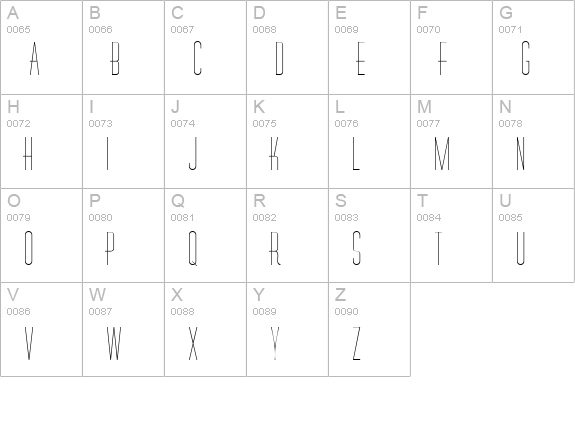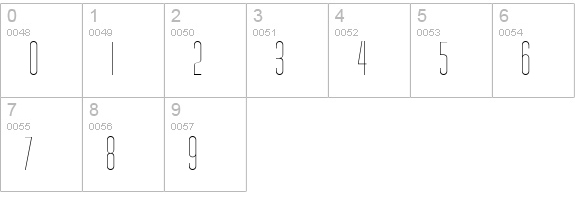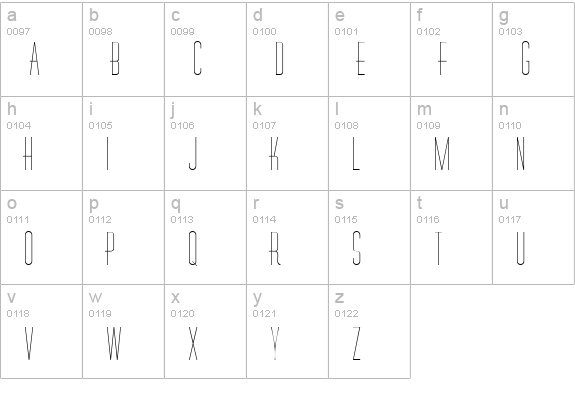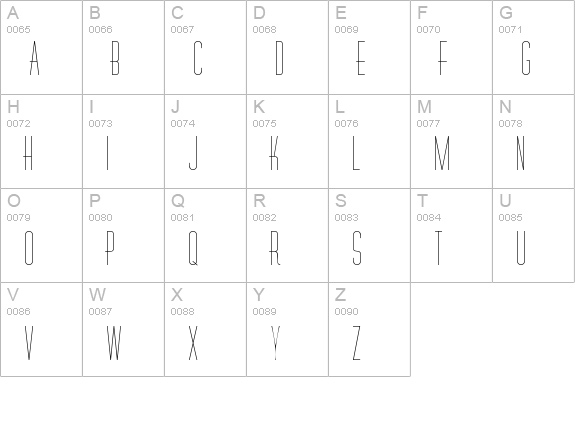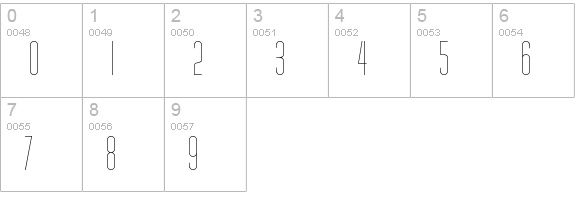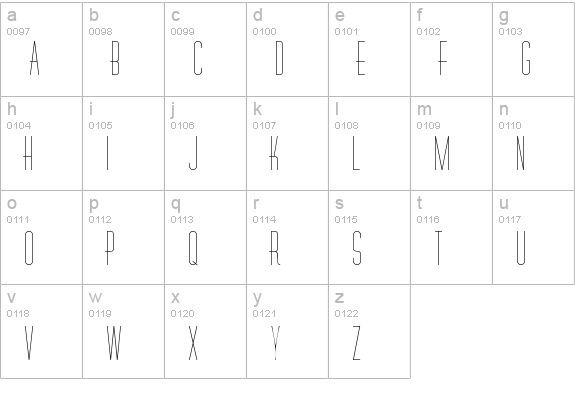
RoselleCapsSSK Font Details
RoselleCapsSSK is a unique and elegant font that exudes sophistication and charm. Its stylish and modern design makes it perfect for a wide range of creative projects, from branding to invitations to social media graphics. The sleek and streamlined letterforms of RoselleCapsSSK add a touch of class to any design, while still maintaining a sense of fun and playfulness. This stunning font is versatile and easy to read, making it ideal for a variety of uses. Whether you're looking to create a professional logo or design eye-catching posters, RoselleCapsSSK is sure to make a statement. With its clean lines and contemporary feel, this font is a must-have for any designer looking to elevate their work. The best part? RoselleCapsSSK is available for free download at FontsMarket.com. This means that you can start using this beautiful font in your projects right away, without having to worry about any extra costs. Don't miss out on the opportunity to add RoselleCapsSSK to your font collection today!